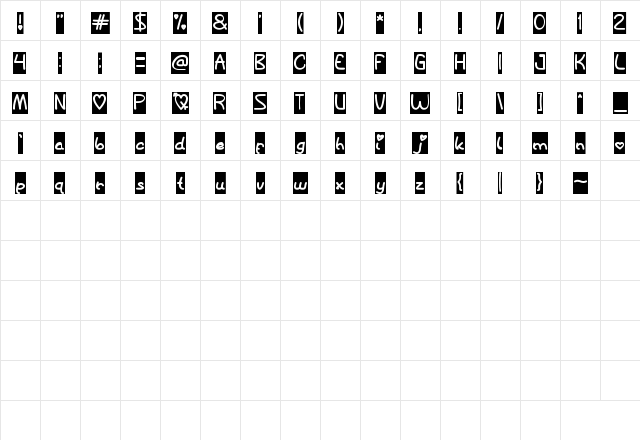
Complete Queen of Love-Inverse Normal glyph index. Displaying only characters natively supported by Queen of Love-Inverse Normal font.
Queen of Love-Inverse is a composed and adaptable typeface that performs quietly and consistently across a wide range of design contexts.